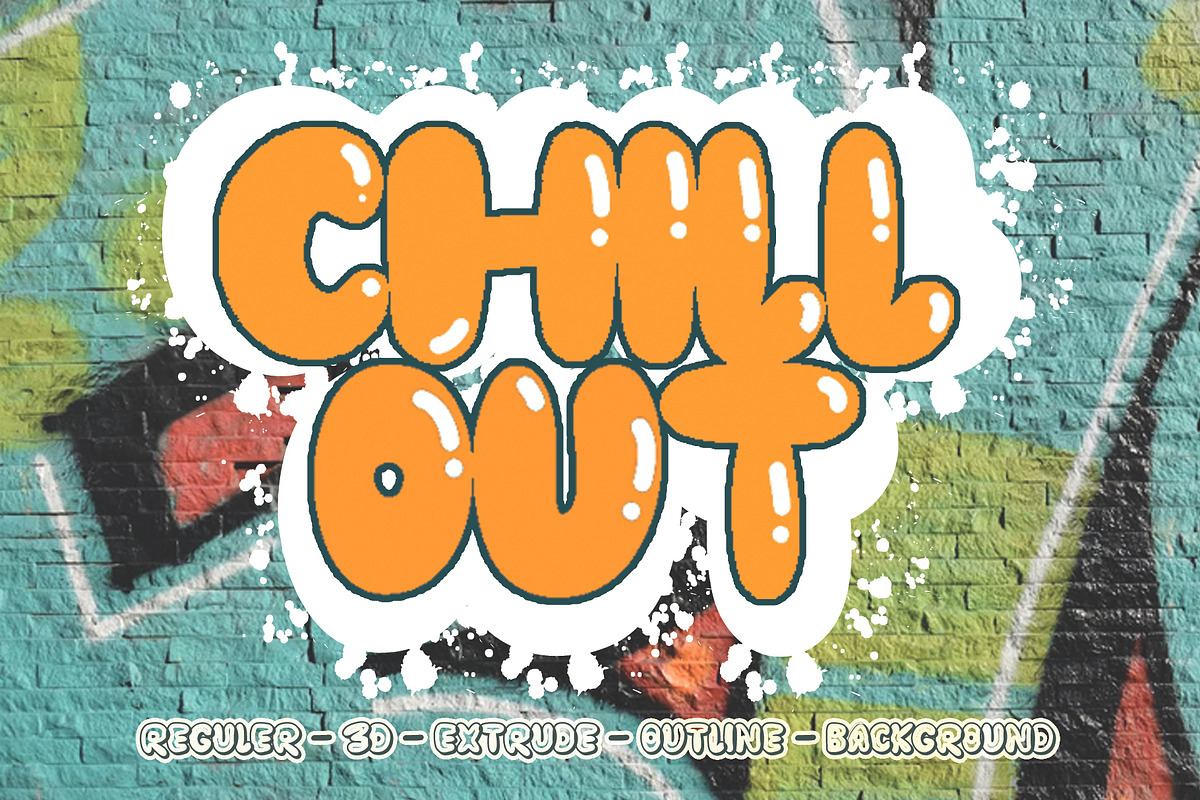
CHILLOUT - Display Font Free Download
CHILLOUT – Display Font Free Download
CHILLOUT – Display Font Free Download is a bold, laid-back typeface with a retro groove and playful energy. Featuring chunky letterforms, smooth curves, and vintage-inspired style, this font is perfect for posters, t-shirt designs, album covers, branding, and social media graphics that need a fun and funky vibe.
Designed to stand out, CHILLOUT – Display Font Free Download brings a carefree, nostalgic feel to any design. Its strong presence and groovy charm make it especially ideal for creative projects that want to evoke a sense of fun, freedom, and retro flair.